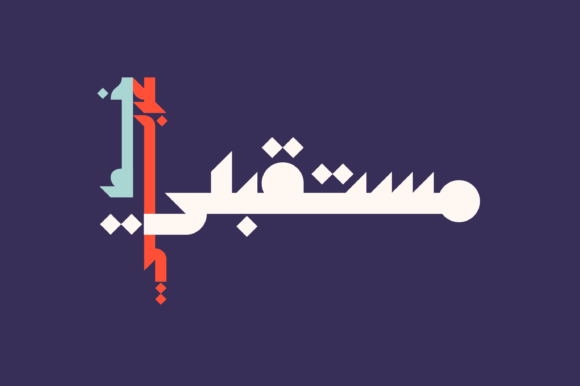
Journey through the cosmos of typography with Mostaqbali, the Arabic display font that will ignite your creative spirit. Inspired by a retro-futuristic aesthetic, Mostaqbali's solid geometric structure and opaque lettering evoke a sense of nostalgia and modernity. Immerse yourself in a world where the past and future collide, where the familiar meets the unexpected.
With Mostaqbali, the possibilities are as boundless as the universe itself. Dive into a sea of creative projects, from web design to print masterpieces, and mobile applications that shimmer with innovation. Let your imagination soar as you explore the vast frontiers of typography, crafting designs that transcend time and space.
Mostaqbali is your passport to a world of limitless expression. Its unique letterforms dance across the page, capturing attention and captivating hearts. Each stroke, each curve, each angle is a testament to the power of creativity, a symphony of visual delight. Unleash your inner artist and watch as your words take on a life of their own, captivating audiences with their eloquence and grace.